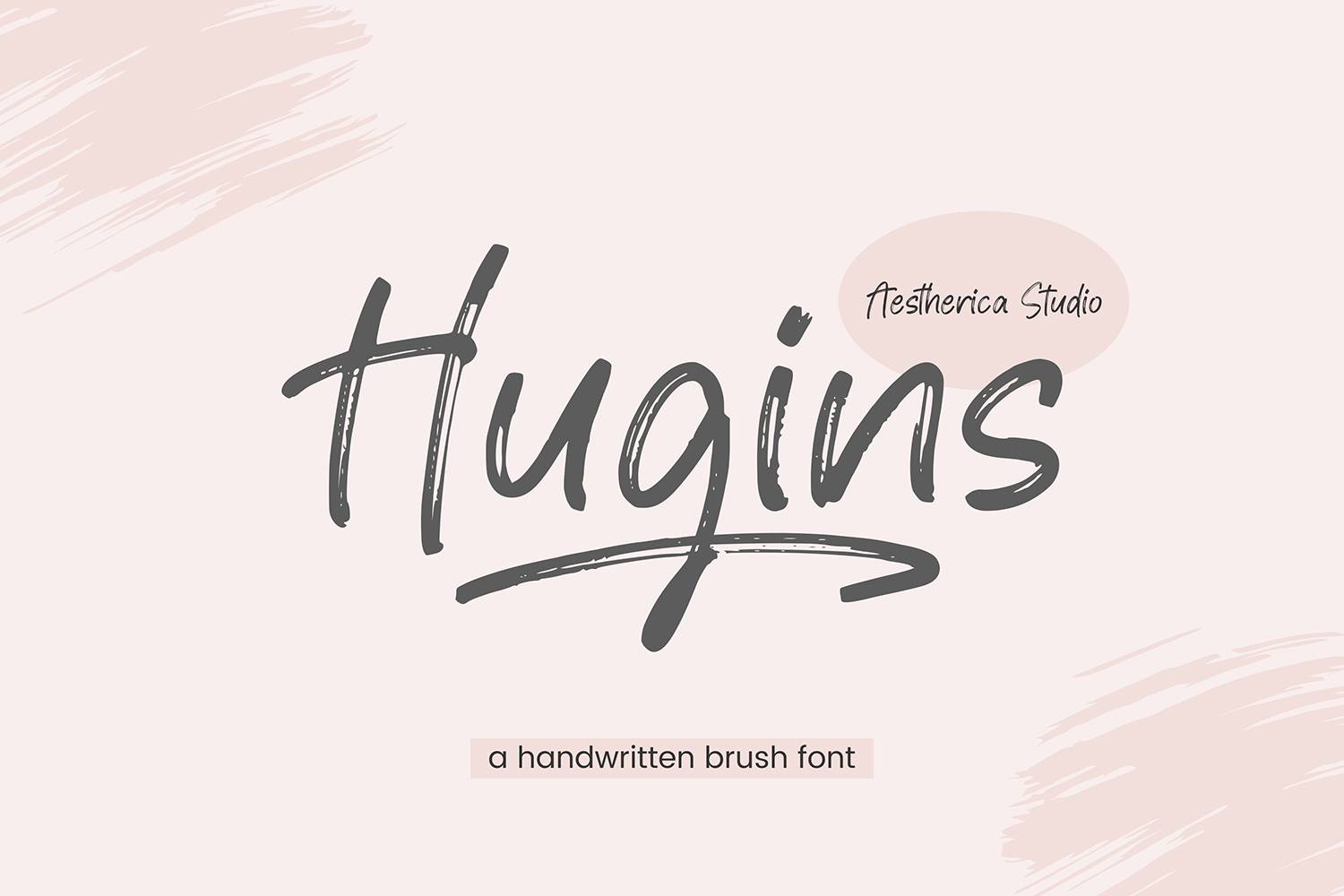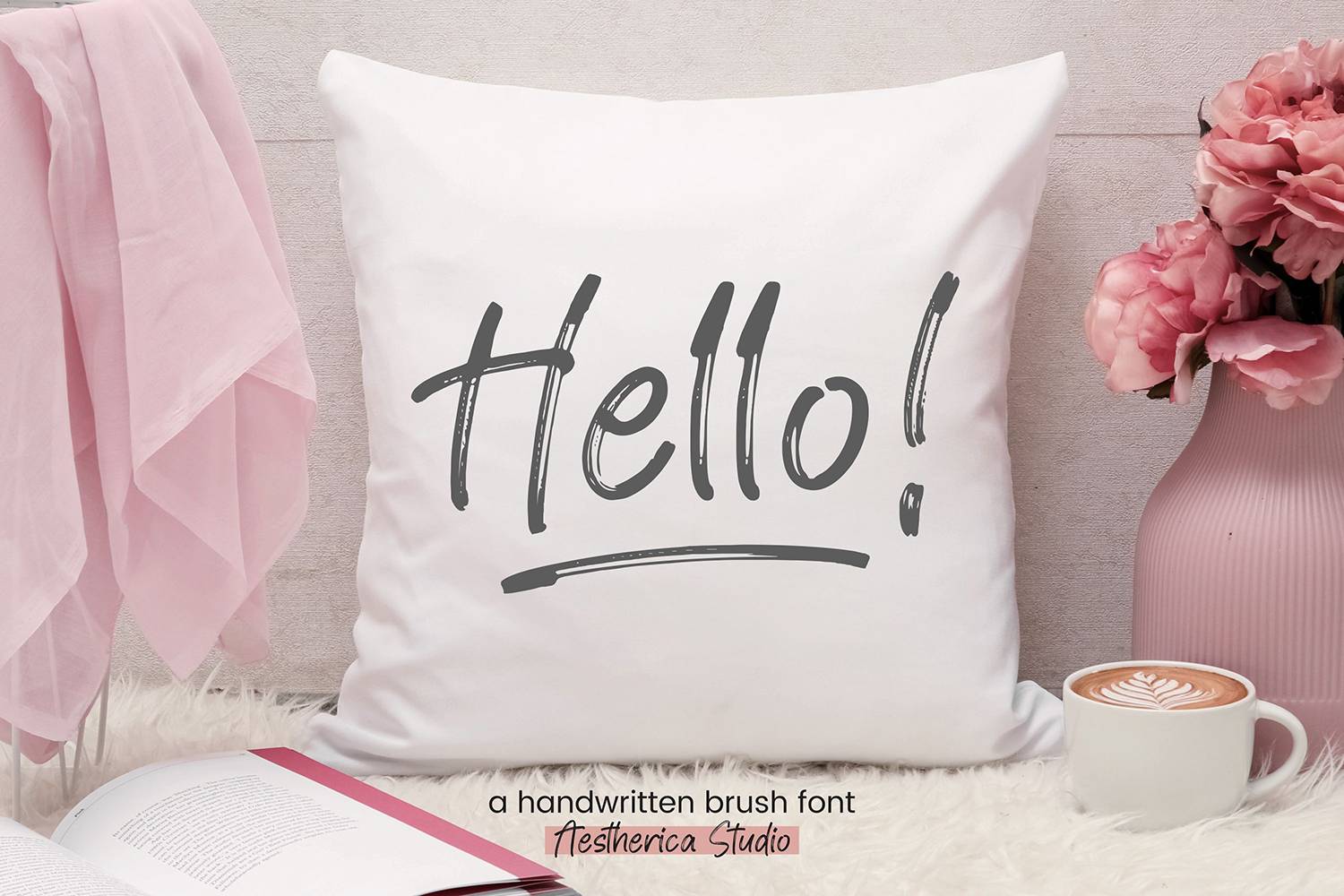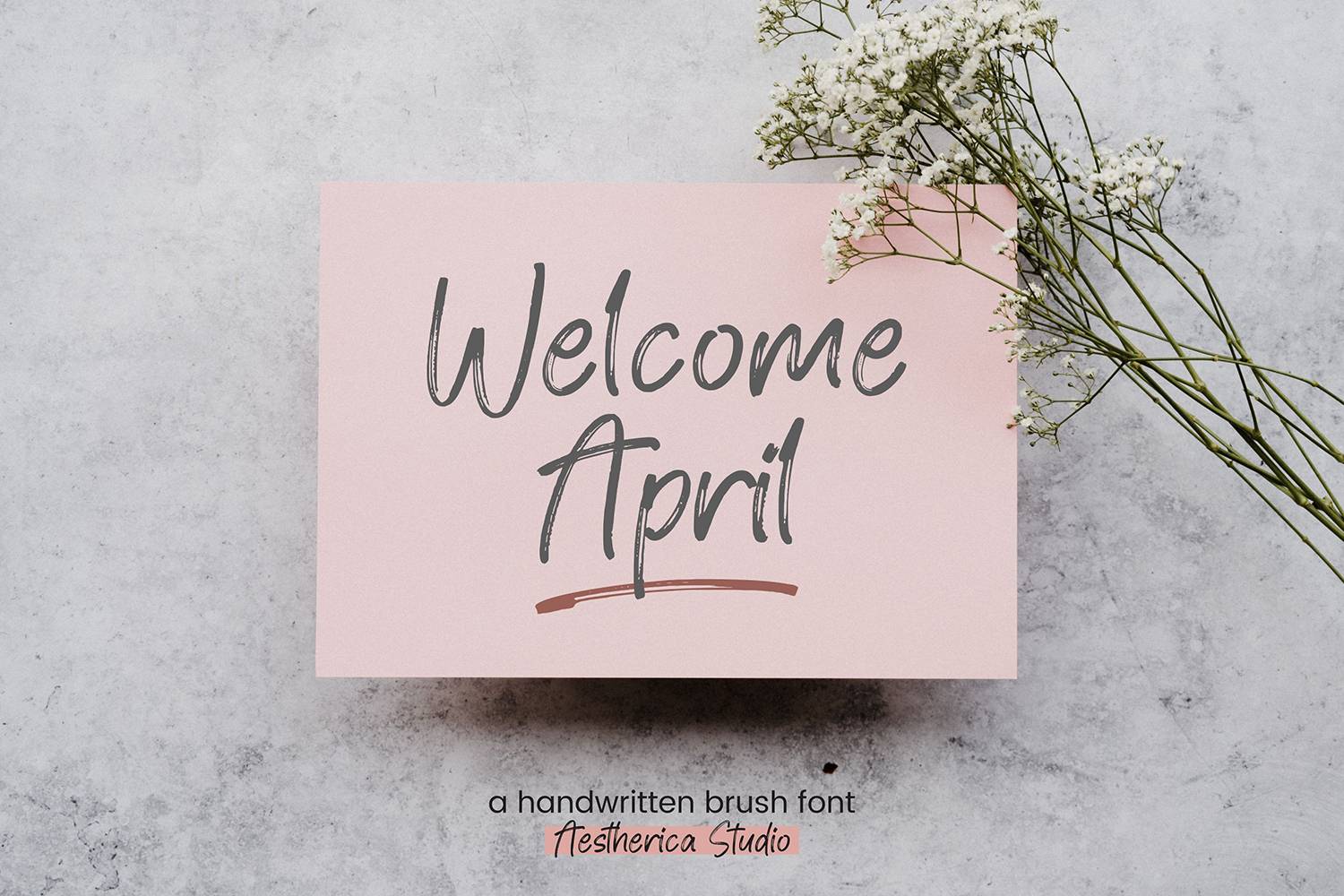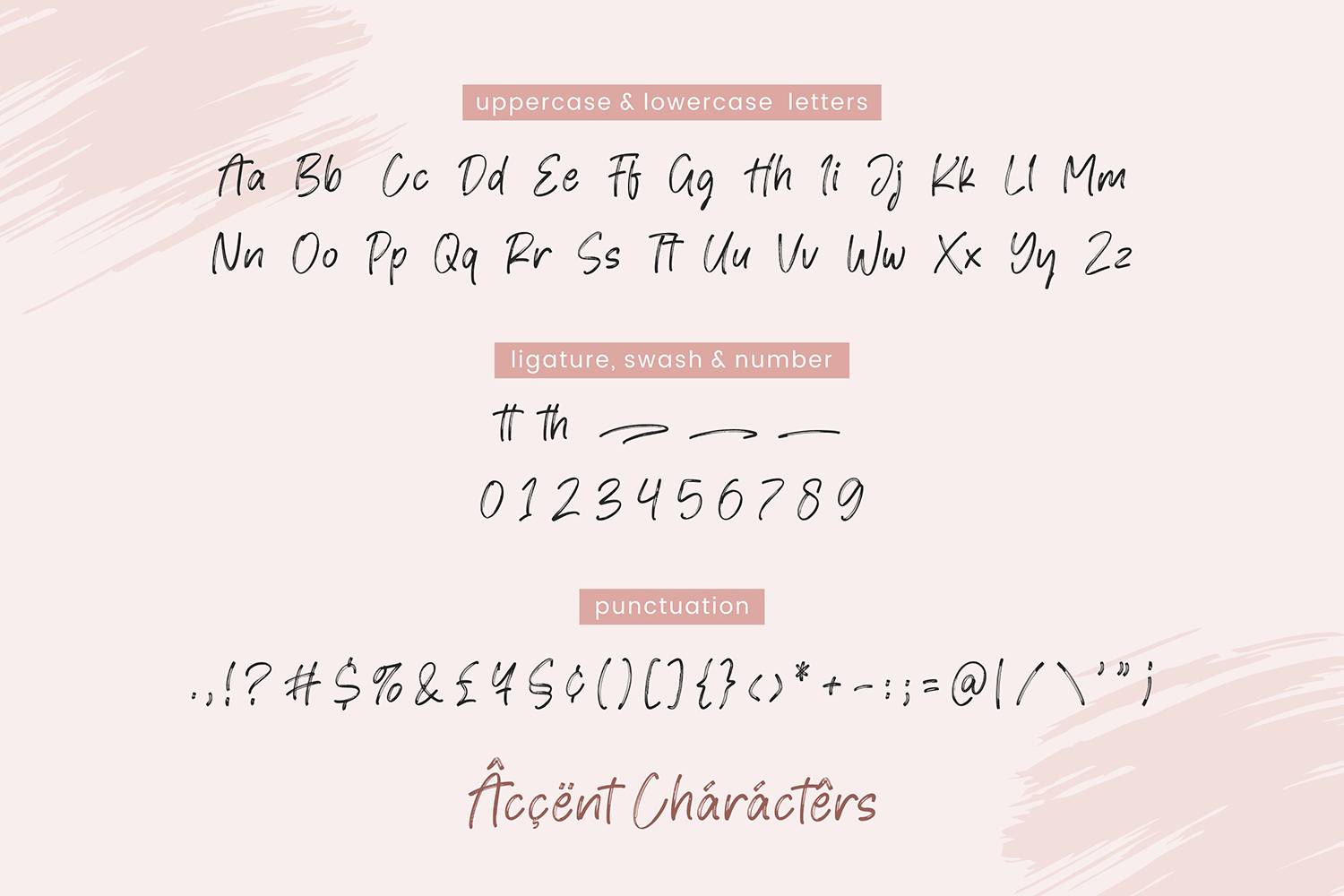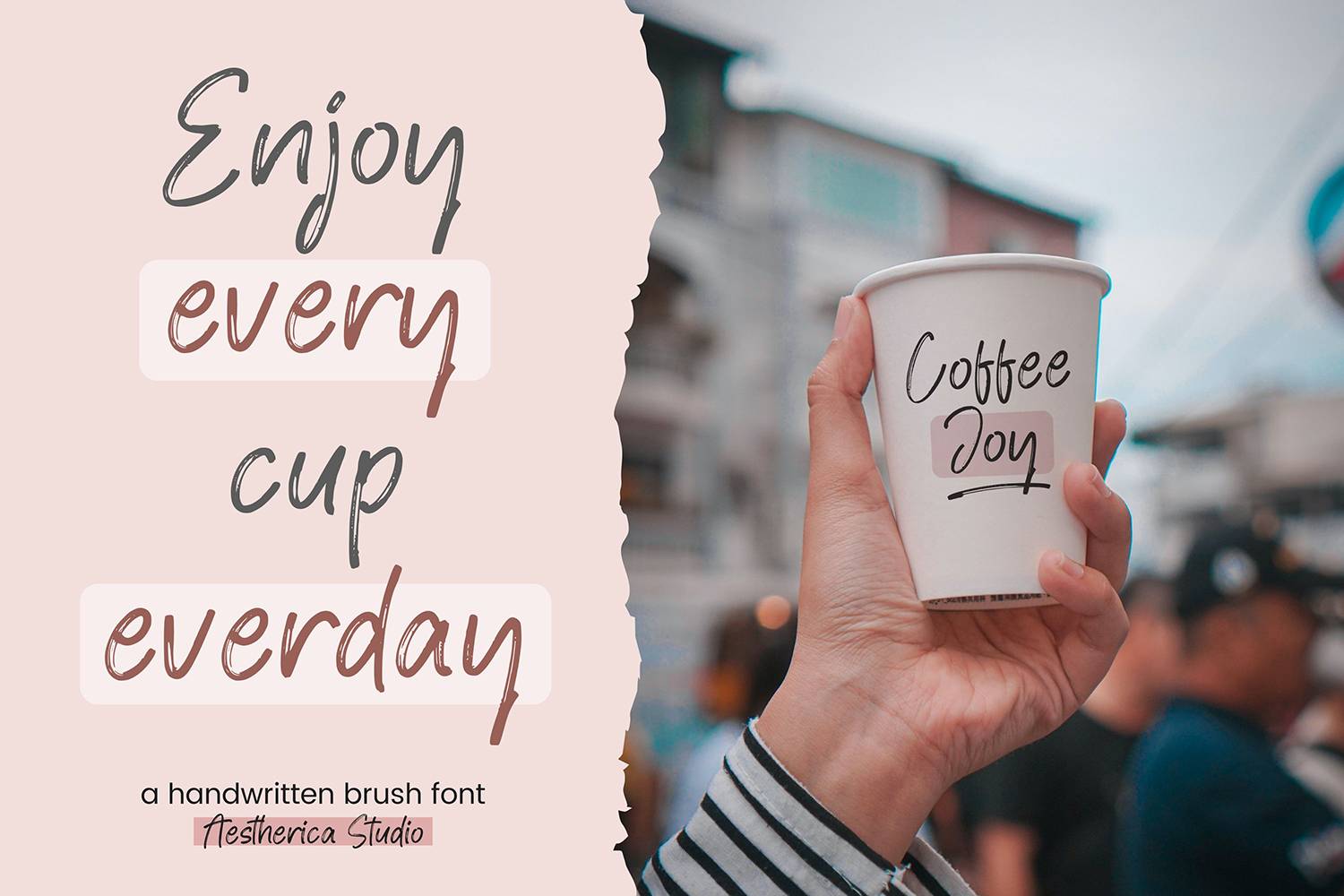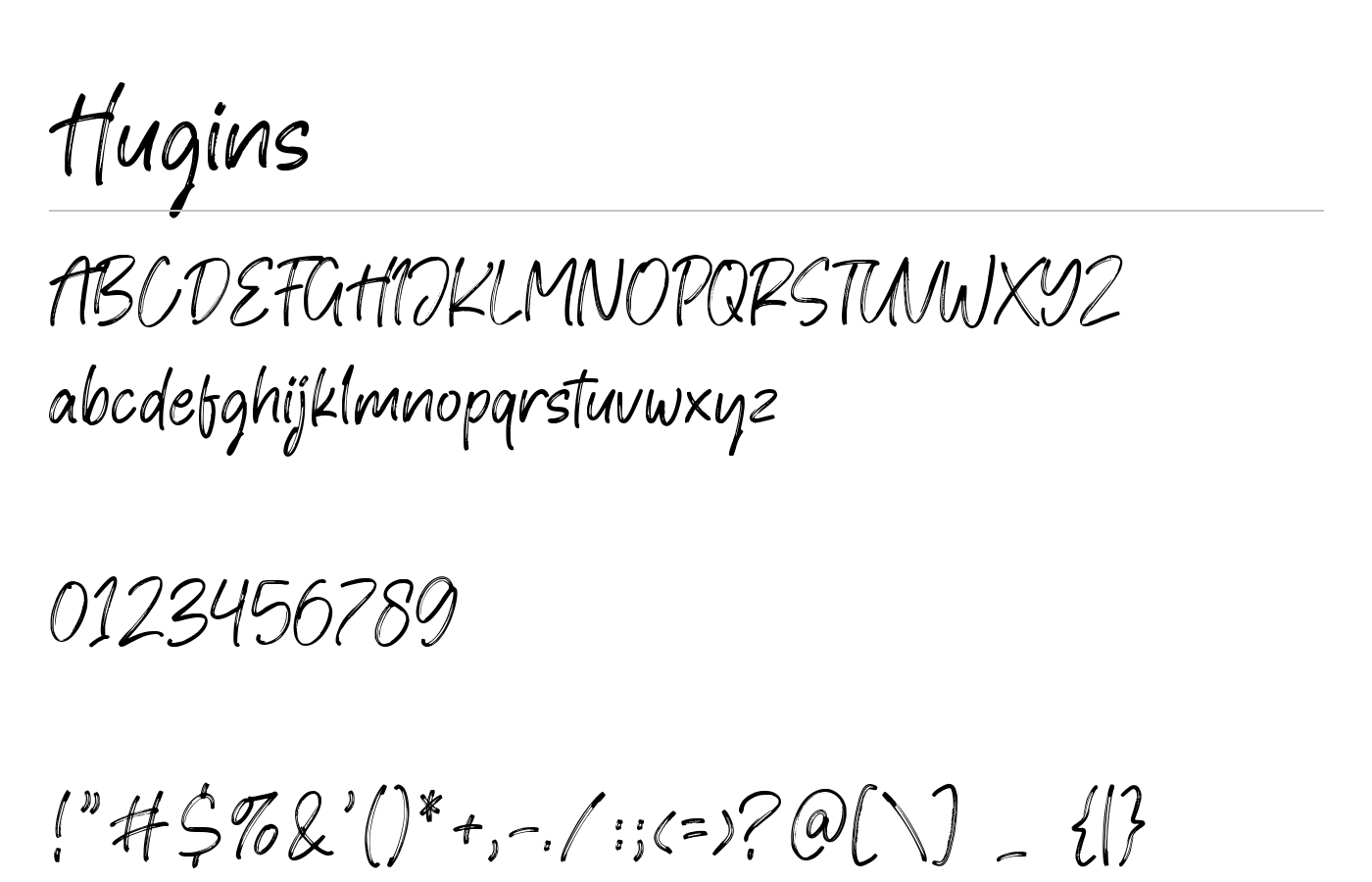
Hugins is a lively, handwritten script font with an informal and expressive style, featuring varied stroke widths that mimic natural brush pen writing. Its tall, narrow letterforms combined with playful yet legible curves make it ideal for personal branding, creative projects, and casual headlines that seek a friendly, artistic vibe. This font works well in designs where a touch of individuality and warmth is desired, such as invitations, logos, and social media graphics.
Hugins Font
About Hugins Font